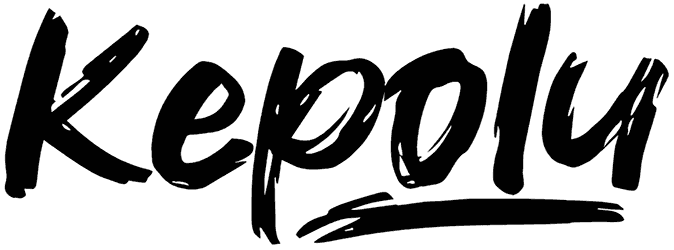
Kepolu Font
Want to primp your upcoming project with a modern and real-face mood? Here you go, this is a brush font with a hand-drawn outward named Kepolu. You can test Kepolu in designs such as covers, posters, textiles, or more of…
Want to primp your upcoming project with a modern and real-face mood? Here you go, this is a brush font with a hand-drawn outward named Kepolu. You can test Kepolu in designs such as covers, posters, textiles, or more of the same, and it will make them contemporary and artful.